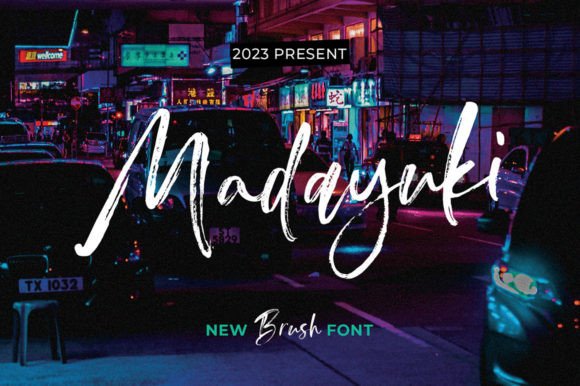
Welcome to the realm of Madayuki Script, where elegance and creativity intertwine to evoke a timeless beauty in your designs. This exquisite script font is crafted with meticulous attention to detail, seamlessly blending sophistication with charm.
Unleash your inner artist and embrace the versatility of Madayuki Script. From wedding invitations that radiate romance to corporate presentations that demand attention, this font effortlessly adapts to a myriad of creative endeavors. Witness the transformation of your projects as Madayuki Script adds a touch of refined grace to every letter, captivating your audience with its undeniable allure.
Immerse yourself in the world of branding and infuse your brand identity with a touch of distinction. Madayuki Script elevates your designs, leaving an indelible mark on the minds of your clientele. The flowing lines and graceful curves of this font exude professionalism and sophistication, perfectly complementing logos, business cards, and marketing materials.
If you seek uniqueness in your creative pursuits, Madayuki Script is your destined companion. Its intricate details and artistic flair breathe life into posters and flyers, transforming them into masterpieces that command attention. Let your imagination soar as you explore the endless possibilities, crafting designs that resonate with your audience and leave a lasting impression.
For the modern resume-seeker, Madayuki Script is the ultimate choice. Its impeccable design and readability ensure that your qualifications and skills shine through, making a bold statement to potential employers. Stand out from the crowd and leave a lasting impression with a resume that exudes both professionalism and creativity.
With Madayuki Script, the boundaries of creativity dissolve, giving rise to enchanting mugs and captivating quotes. Imagine sipping your morning coffee from a mug adorned with Madayuki Script's graceful strokes, or adorning your walls with quotes that inspire and uplift your soul. This font adds a touch of elegance to the mundane, transforming everyday objects into works of art.